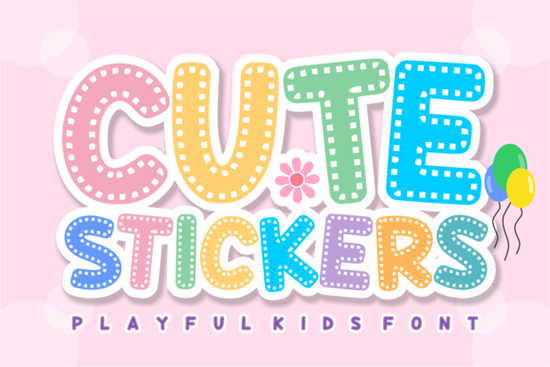
If you've ever wanted a font that looks like it belongs on a handmade sticker pack, the Cute Stickers font is exactly that. It's a bold, rounded display typeface with dashed-line stitching details inside each letter, giving every word a crafty, handmade feel. This makes it a strong choice for anyone working on planner stickers, classroom materials, birthday party decor, or kids' apparel designs. Below, I'll walk through what it offers, who it's best suited for, and how to get the most out of it in your projects.
What Does Cute Stickers Font Actually Look Like?
Think of a thick, rounded letter with a dashed outline running through it like something you'd trace with a stitching wheel or a perforated edge on a craft cutter. The letters are chunky and highly legible, even at smaller sizes, which is not always the case with decorative display fonts. The stitched detail adds texture without making the text hard to read.
It works well in both uppercase and lowercase, and the overall style sits somewhere between kawaii craft aesthetic and classic sticker design. If you've used playful typefaces like a sweet bubblegum-style font, you'll feel right at home here though the stitched look gives Cute Stickers its own personality.
Is This Font Good for Cutting Machines?
Yes and this is one of its strongest selling points. The bold, clean outlines make it compatible with Cricut, Silhouette, and other vinyl cutting machines. The letter shapes don't have ultra-thin strokes or fiddly details that cause problems when weeding vinyl or cutting heat transfer material.
You can use it directly in design software like Canva, Adobe Illustrator, Cricut Design Space, or Silhouette Studio without needing to modify the letterforms. This saves time, especially if you're producing stickers or labels in bulk for a shop or event.
What Can I Make With a Stitched Sticker Font?
The product description lists a wide range of uses, and honestly, the versatility is real. Here are some specific project ideas that work particularly well:
- Planner stickers Weekly headers, habit tracker labels, and motivational quote stickers all look great in this style.
- Classroom materials Flashcards, name tags, bulletin board headings, and worksheet titles. If you're a teacher or homeschool parent, a font like this classroom-friendly display typeface pairs nicely for variety.
- Birthday party decor Invitations, banners, cupcake toppers, and favor labels. The stitched look gives everything a DIY charm.
- Product labels If you sell handmade goods at craft fairs or on Etsy, this font works well for packaging labels, especially on products aimed at kids or families.
- T-shirt designs The bold weight holds up on apparel. It works for sublimation, HTV (heat transfer vinyl), and DTF printing.
- Scrapbooking and card making Titles, captions, and accent words for both digital and physical scrapbooks.
Does It Pair Well With Other Fonts?
Display fonts like this work best when paired with a clean, simple body font. Think a basic sans-serif or a light handwritten script for supporting text. Cute Stickers is meant to be the headline the attention-grabber so let it do that job and keep everything else understated.
For sports-themed or energetic designs, an athletic font bundle covers ground that a sticker font obviously can't so building a small library of display fonts is worth the investment.
Is Cute Stickers Font Worth It for Small Businesses?
If you run a print-on-demand shop, a small craft business, or even a side hustle selling stickers on Etsy, fonts like this can pay for themselves quickly. A single font that works across multiple product lines stickers, labels, apparel, party supplies means you're not constantly searching for new typefaces for every project.
The legibility factor matters too. Some decorative fonts look great in previews but fall apart at small sizes or on busy backgrounds. Cute Stickers holds up because of its thick strokes and simple shapes. The stitching detail reads as texture rather than clutter, even on patterned backgrounds or colored vinyl.